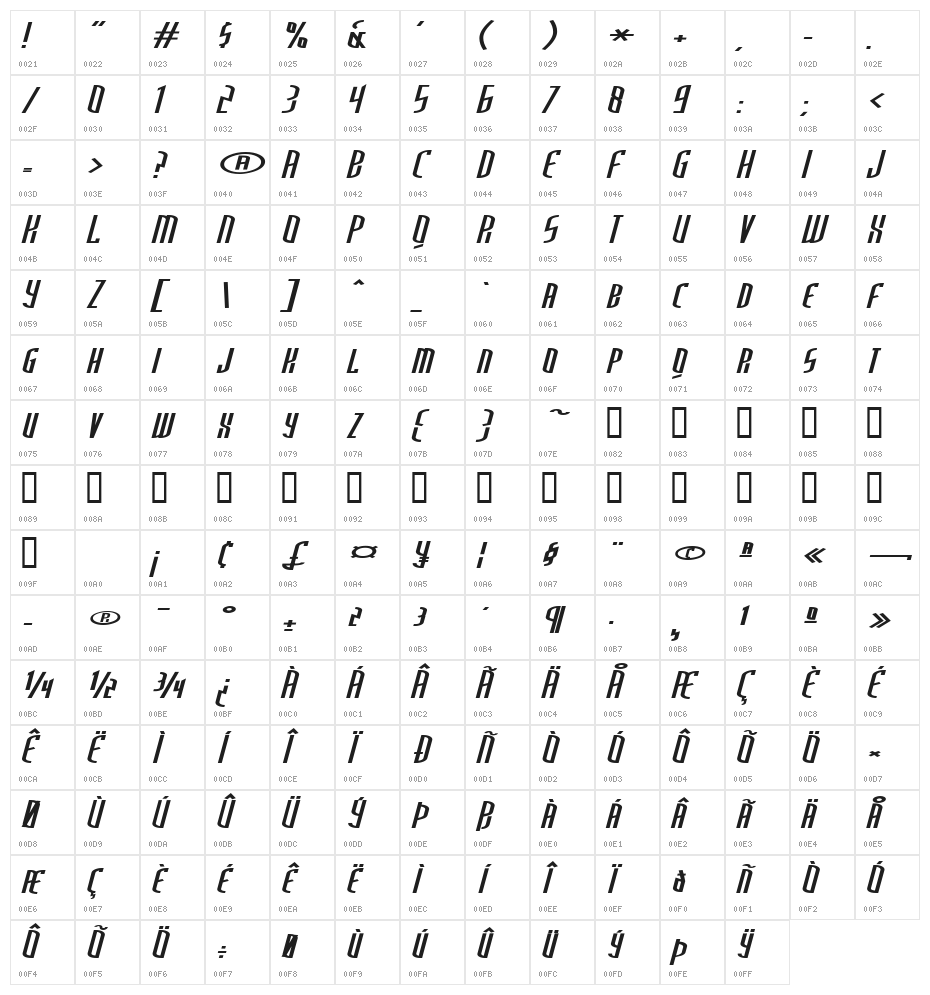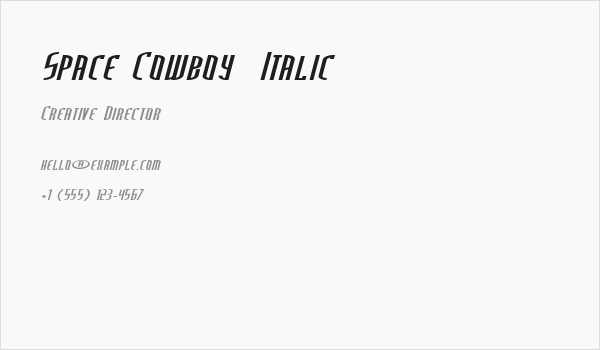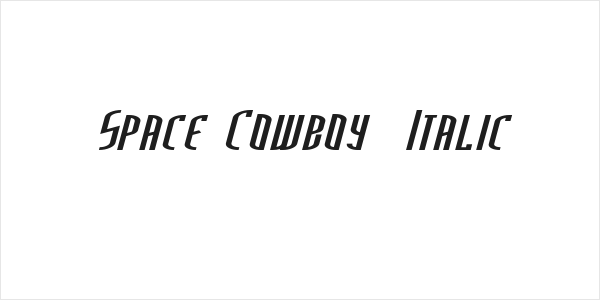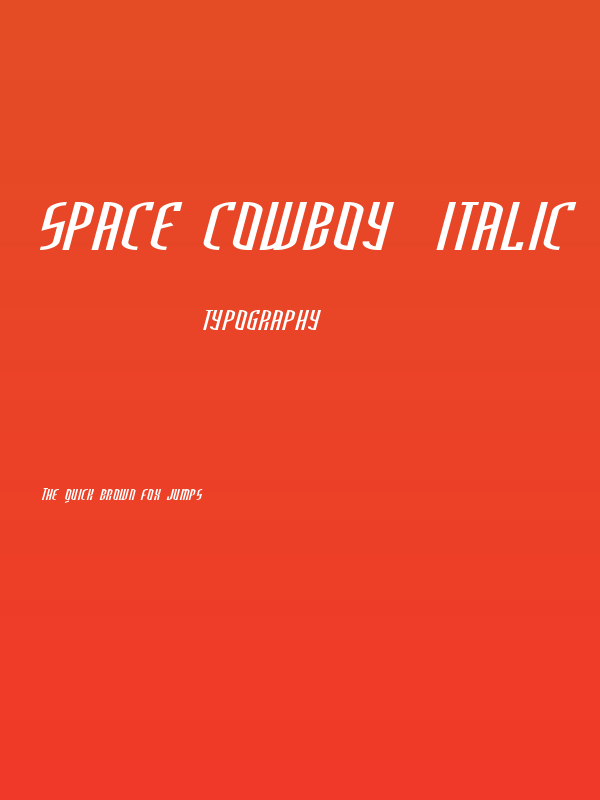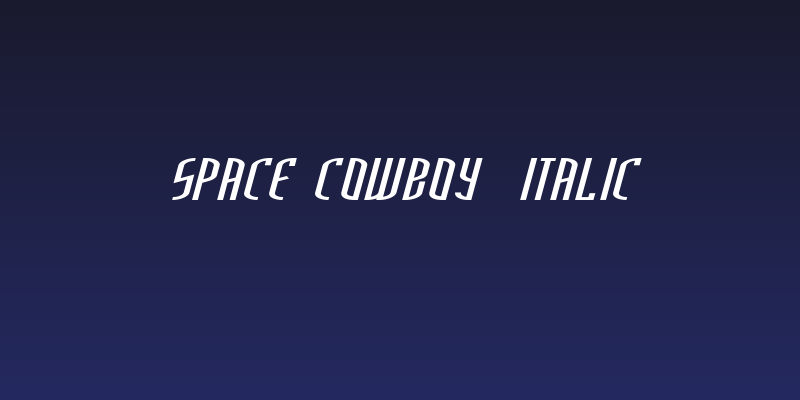
Space Cowboy Italic Font
Space Cowboy Italic Description
This font features a dynamic and futuristic design with a distinct italic slant, giving it a sense of motion and energy. The characters are elongated and angular, with sharp edges and a sleek, modern appearance. The uppercase and lowercase letters maintain a consistent style, emphasizing the font's cohesive look. Numbers and special characters are designed with the same angular and slanted characteristics, ensuring uniformity across all glyphs. The font's unique style makes it suitable for projects that require a bold and eye-catching typeface.
| Overall Style | Futuristic, Modern |
| Proposed Projects | Ideal for sci-fi themed posters, video game titles, futuristic branding, and dynamic logo designs. |